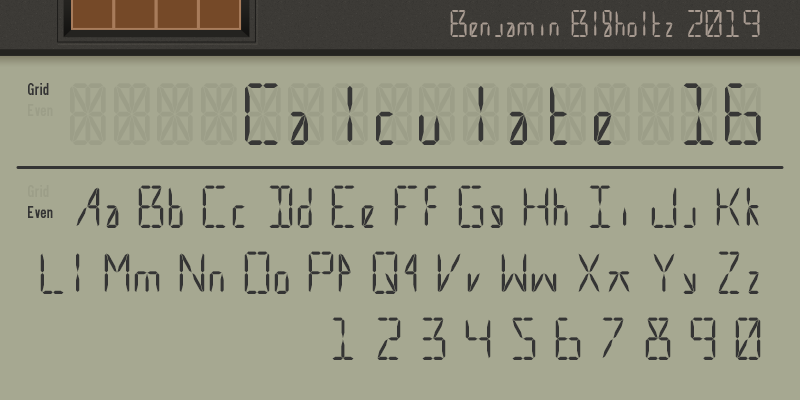
Font name: | Calculate 16 |
Author: | Benjamin Bl�holtz |
Note by Benjamin Bl�holtz | |
Calculate 16 is a free "16 segment display" font, with some unique solutions. Unlike most types in this category it doesn't use default 8 segment design for numbers, but instead makes use of the extra segments whenever it helps make characters more distinguishable, and the lower case letters are all as compact as they can be, ususally only using a quarter of the available space It comes in two styles: Even - Ordinary spacing, looks better for text without a grid, but inaccurate to how it would look on an actual display by not being the same width for all characters Grid - Accurate to a real display, technically monospaced, but since not all charactersuse the same width, it looks a bit strange without the grid underneath To get the "all segments on" base/grid, use the unknown "�" replacement character by Benjamin Bl�holtz 2019 Enjoy :) |